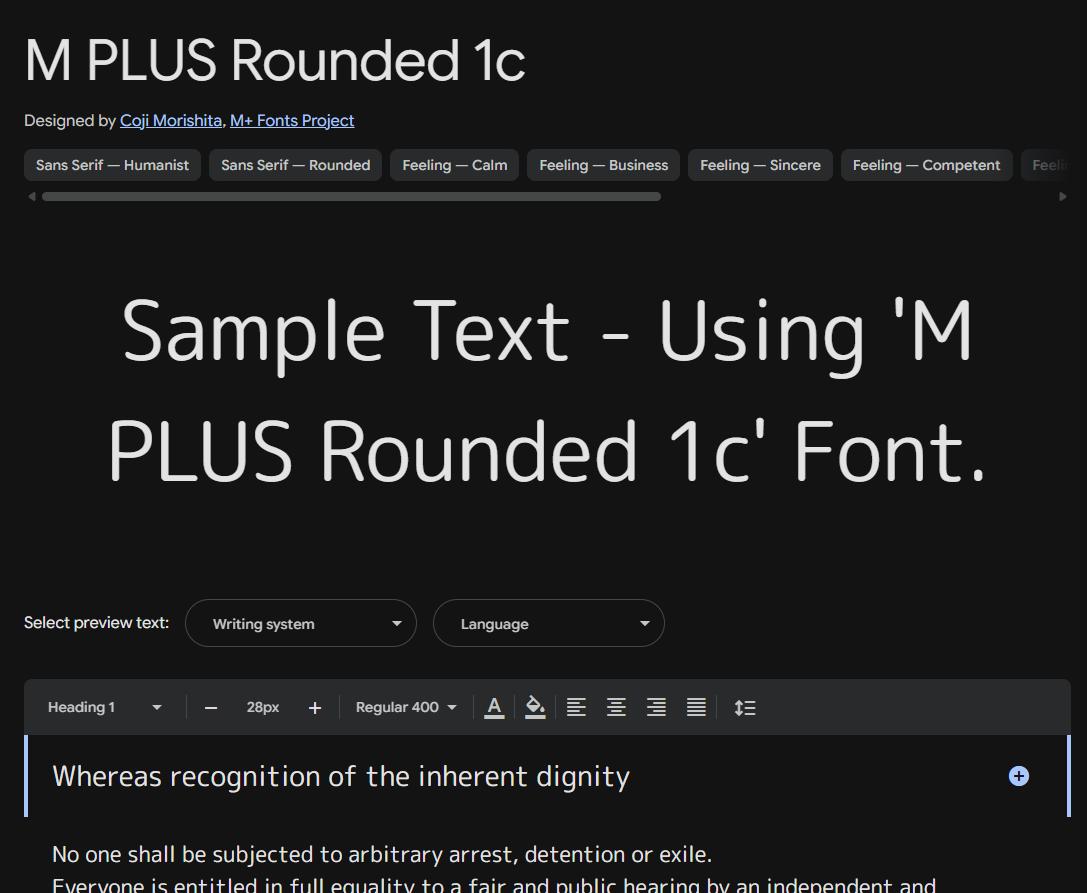
Engineered by Coji Morishita as a high-performance extension of the M+ Fonts Project, M PLUS Rounded 1c redefines the intersection of geometric sans-serif aesthetics and soft-terminal legibility through its comprehensive collection of 7 styles ranging from Thin to Black. This typeface distinguishes itself in the industry by harmonizing complex Japanese kanji and kana with proportional Latin glyphs, utilizing meticulous optical correction and stroke modulation to maintain a consistent gray value across dense multilingual blocks. Unlike standard rounded fonts that often sacrifice professional rigor for approachability, M PLUS Rounded 1c leverages a disciplined baseline and sophisticated kerning pairs, providing a versatile typographic hierarchy that excels in high-resolution UI environments where accessible, human-centric geometry is paramount.
M PLUS Rounded 1c distinguishes itself as a sophisticated Sans Serif - Humanist typeface that leverages the soft geometry of a Sans Serif - Rounded aesthetic to humanize high-density digital interfaces. By balancing the precise optical kerning required for a professional Business environment with the generous apertures of a Happy and Calm design, the family projects a Sincere and Competent persona across its expansive glyph set. The typeface's technical architecture enables a versatile range of expressions where heavy-weight stroke terminals command a Loud presence, yet the underlying skeleton maintains a certain Stiff precision that evokes a Vintage, Rugged durability, effectively bridging the gap between functional industrialism and organic warmth.
The M PLUS Rounded 1c typeface, characterized by its softened terminals and generous counters, is fundamentally ill-suited for high-stakes legal documentation or conservative financial institutions where the semiotic weight of authority requires the rigid vertical stress and sharp apertures of traditional transitional faces. While the M+ Fonts Project excels in providing a versatile range of seven weights for digital interfaces, the inherent lack of mechanical austerity in Coji Morishita's rounded geometry undermines the gravitas necessary for legacy luxury branding or high-precision engineering schematics that demand extreme stroke modulation for clarity at micro-scales. Because the typeface lacks the hierarchical rigidity of a neo-grotesque or the historical prestige of an old-style serif, its deployment in environments requiring institutional trust-such as judicial filings or complex medical diagnostic reporting-can project an unintended informality that compromises the perceived reliability and professional rigor of the data presented.
M PLUS Rounded 1c is highly suitable for body text due to its balanced proportions and clear letterforms. The font's large x-height and open apertures ensure high readability even at lower pixel densities, significantly reducing eye strain during long-form digital reading.
This font family provides extensive support for the Japanese writing system, covering Kanji, Hiragana, and Katakana. By integrating over 5,000 glyphs, the typeface ensures seamless typographic consistency between Latin and CJK character sets for multilingual user interfaces.
The M PLUS Rounded 1c family offers a versatile range of seven distinct weights for various design needs. Spanning from Thin (100) to Black (900), this weight distribution allows designers to implement complex typographic hierarchies based on precise CSS font-weight values.
The typeface communicates a soft, friendly, and modern aesthetic that feels approachable to users. Its geometric foundation combined with rounded terminals creates a humanistic digital experience that aligns with modern "soft UI" and "Neumorphism" design trends.
It is exceptionally effective for UI design, particularly in mobile applications and web dashboards. The rounded geometry mirrors the corner radius of modern CSS containers, fostering a cohesive visual rhythm across interactive components and tactile elements.
The heavier weights of this font are ideal for creating impactful and legible headlines at large scales. Utilizing the Black weight provides high visual weight and contrast, making it a powerful choice for hero sections requiring high-impact display typography.
The font maintains excellent legibility at small sizes thanks to its generous letter spacing and clear strokes. Wide internal counters prevent character blurring at small point sizes, a technical necessity for maintaining accessibility standards in dense information environments.
It pairs effectively with sharp geometric sans-serifs or high-contrast serif fonts for stylistic variety. Creating a typographic contrast between the rounded terminals of M PLUS and the rigid verticality of a neo-grotesque face optimizes the visual hierarchy for complex layouts.
The font features a monolinear design, ensuring that stroke thickness remains consistent across all characters. This uniform stroke weight minimizes optical distractions, allowing the typeface to perform consistently across various screen resolutions and rendering engines.
It is a strong candidate for logo design when a brand wants to appear accessible and trustworthy. The distinct terminal rounding provides a unique organic silhouette that differentiates brand marks from standard sharp-edged corporate typography.